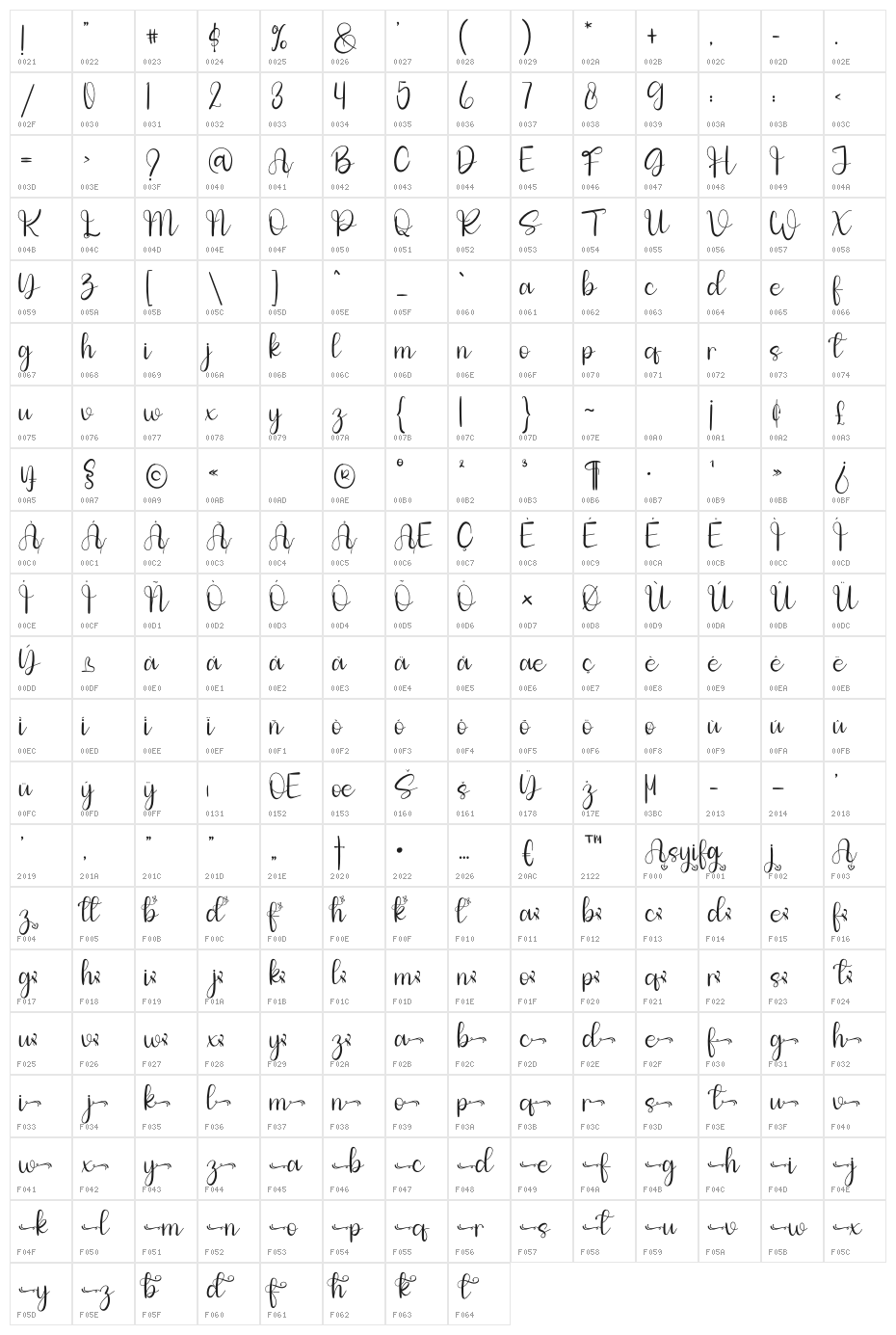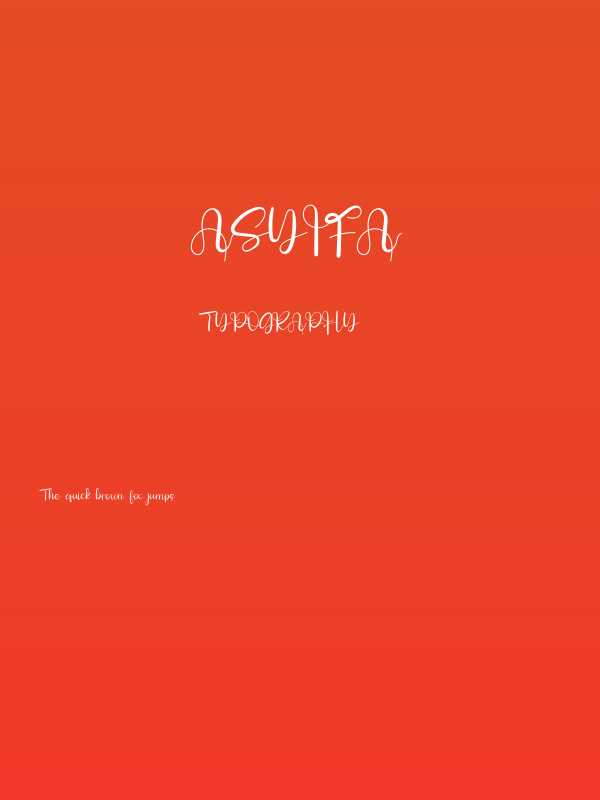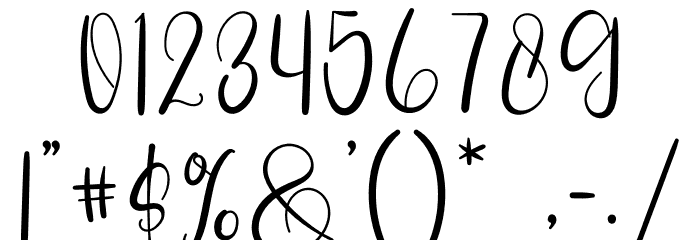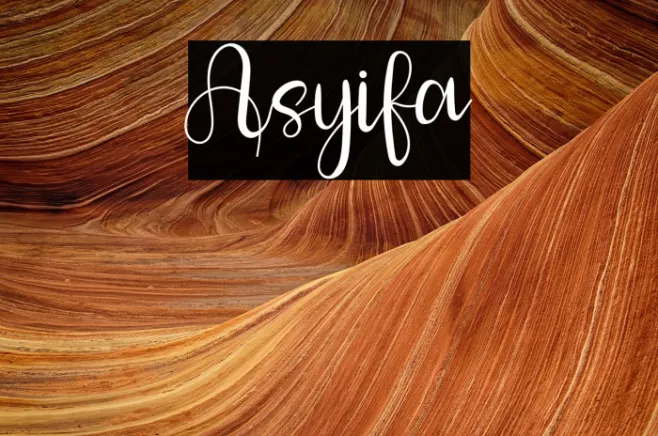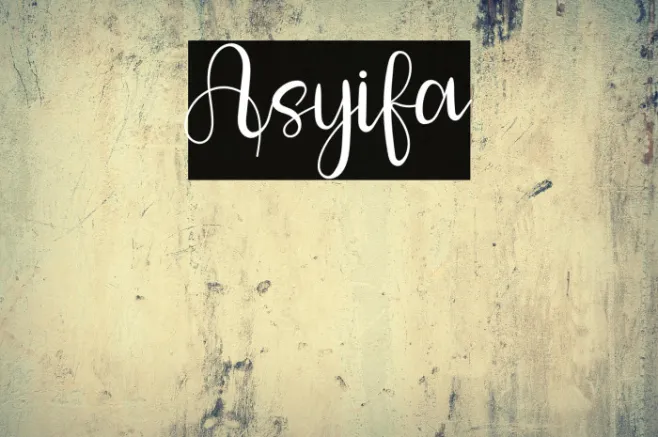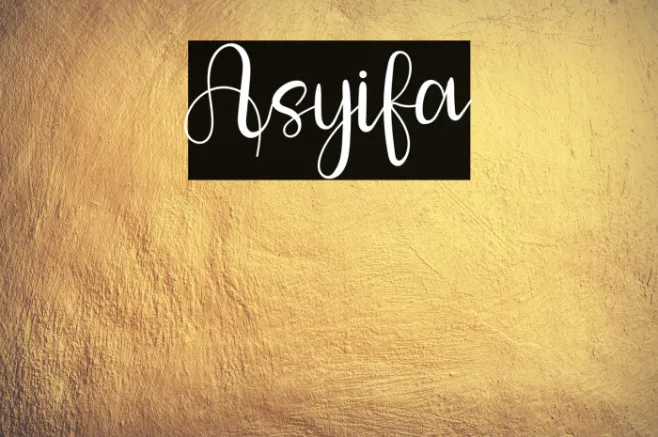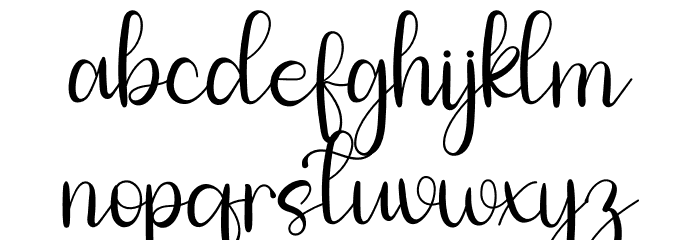
Asyifa Font
Asyifa Description
This font exhibits a flowing, cursive style with a modern twist, characterized by its elegant and fluid letterforms. The uppercase letters are tall and slightly narrow, with graceful loops and swashes that add a touch of sophistication. The lowercase letters maintain a consistent flow, with smooth connections between characters, enhancing readability while preserving the script's artistic flair. The numerals are well-balanced, matching the overall aesthetic of the alphabet. Special characters are thoughtfully designed to complement the font's style, making it versatile for various applications.